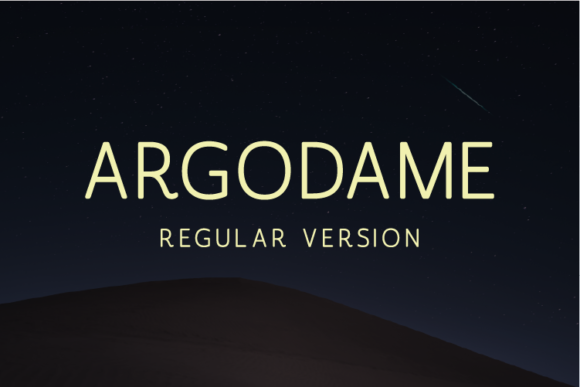
Argodame Font
Introducing Argodame Font: The Sans Serif Font That Captures Hearts and Minds
In a digital world saturated with visual noise, your words have the power to cut through the clutter and captivate your audience. But what if you could elevate your message beyond mere words and transform it into an art form? Enter Argodame Font, the sans serif font that breathes life into your designs and ignites emotions with every stroke.
With its soft terminals and inviting curves, Argodame Font exudes a charm that's impossible to resist. It's like a warm hug on a cold day, a gentle caress that soothes the soul. Its friendly and expressive nature makes it the perfect choice for creating designs that resonate with your audience on a deeper level.
Whether you're crafting headlines that demand attention, logotypes that leave a lasting impression, or branding that speaks to your customer's aspirations, Argodame Font is your secret weapon. Its modern and contemporary style, coupled with its classic proportions, ensures that your designs will stand the test of time.
Imagine your words taking center stage, commanding attention with their elegance and poise. Argodame Font transforms ordinary text into visual masterpieces, enhancing the impact of your message and leaving your audience spellbound. Experience the power of Argodame Font and watch as your designs blossom into works of art that captivate and inspire.
Embrace the Argodame Font experience today and unlock a world of possibilities. Let your creativity soar as you create designs that captivate hearts and minds. Argodame Font is more than just a font; it's an emotional journey that will redefine your design aesthetic and leave an indelible mark on your audience.